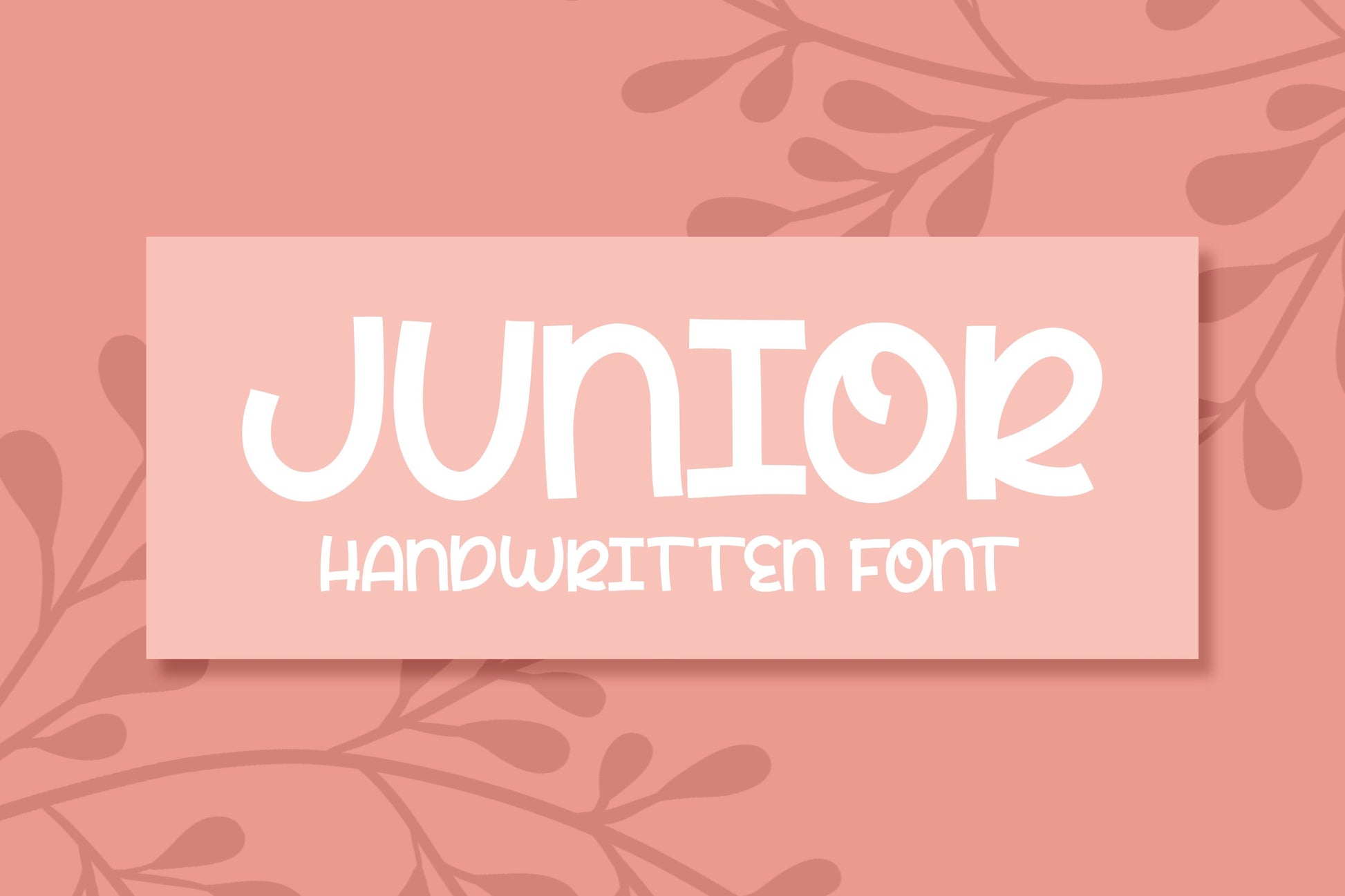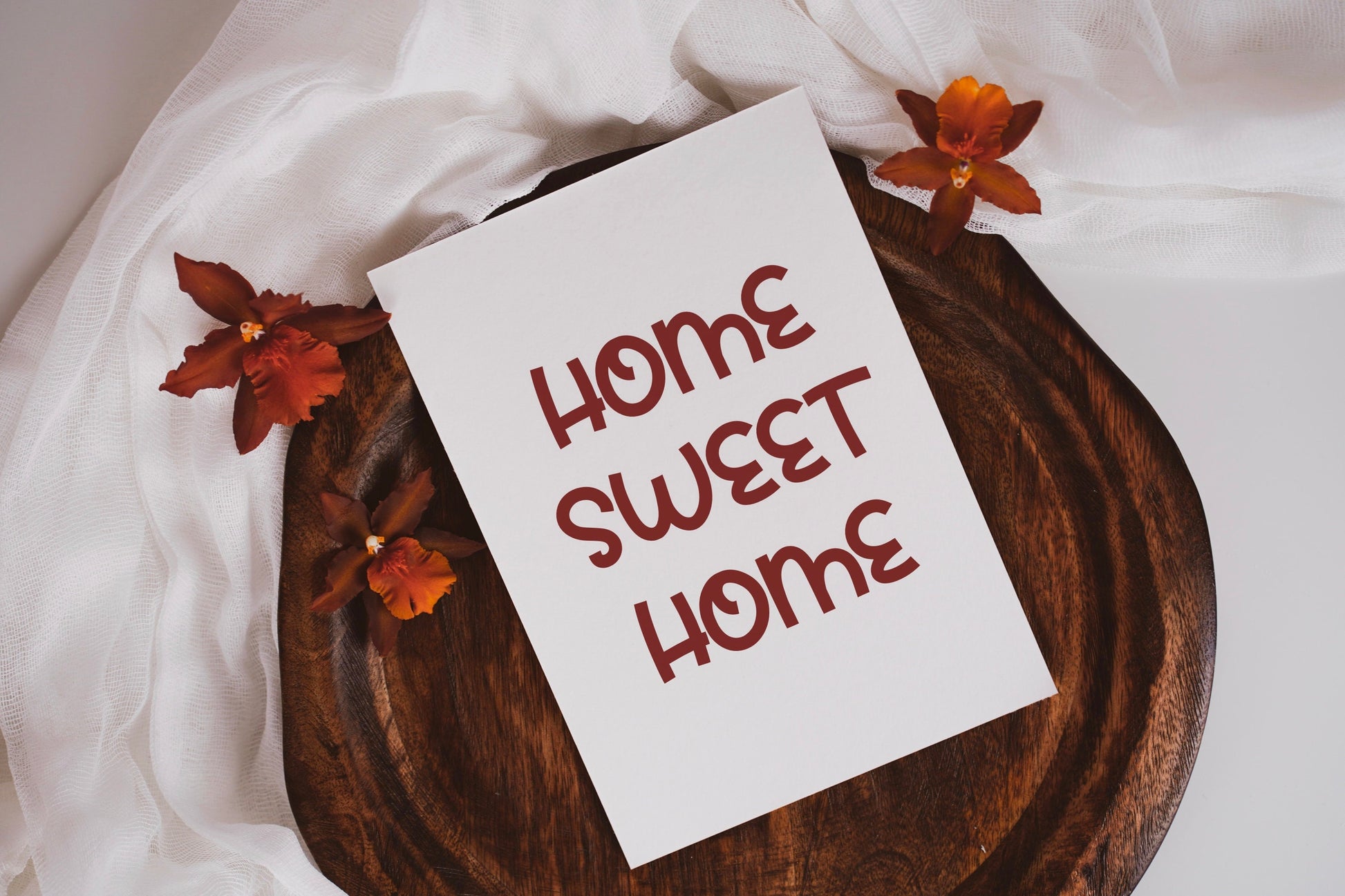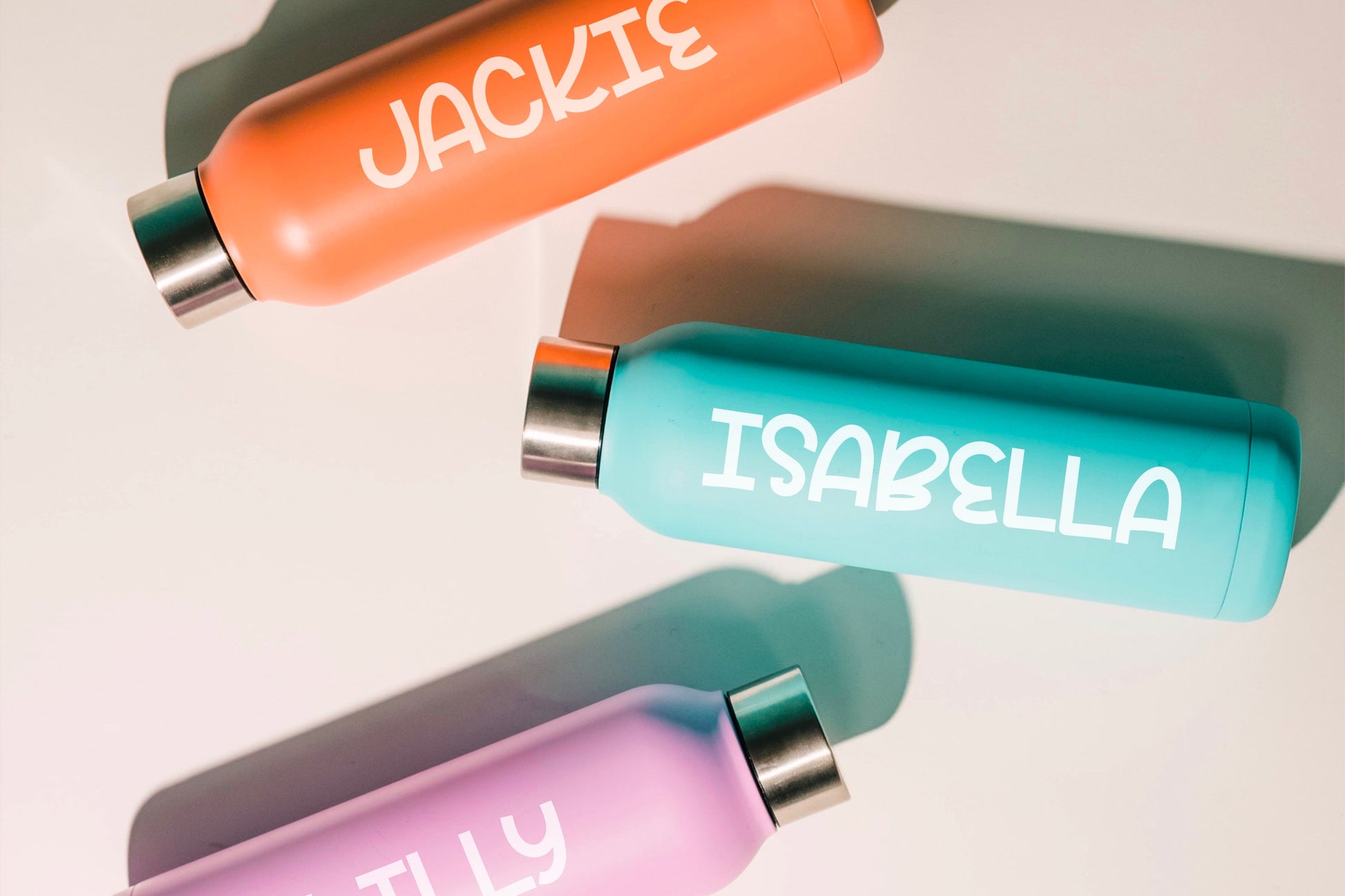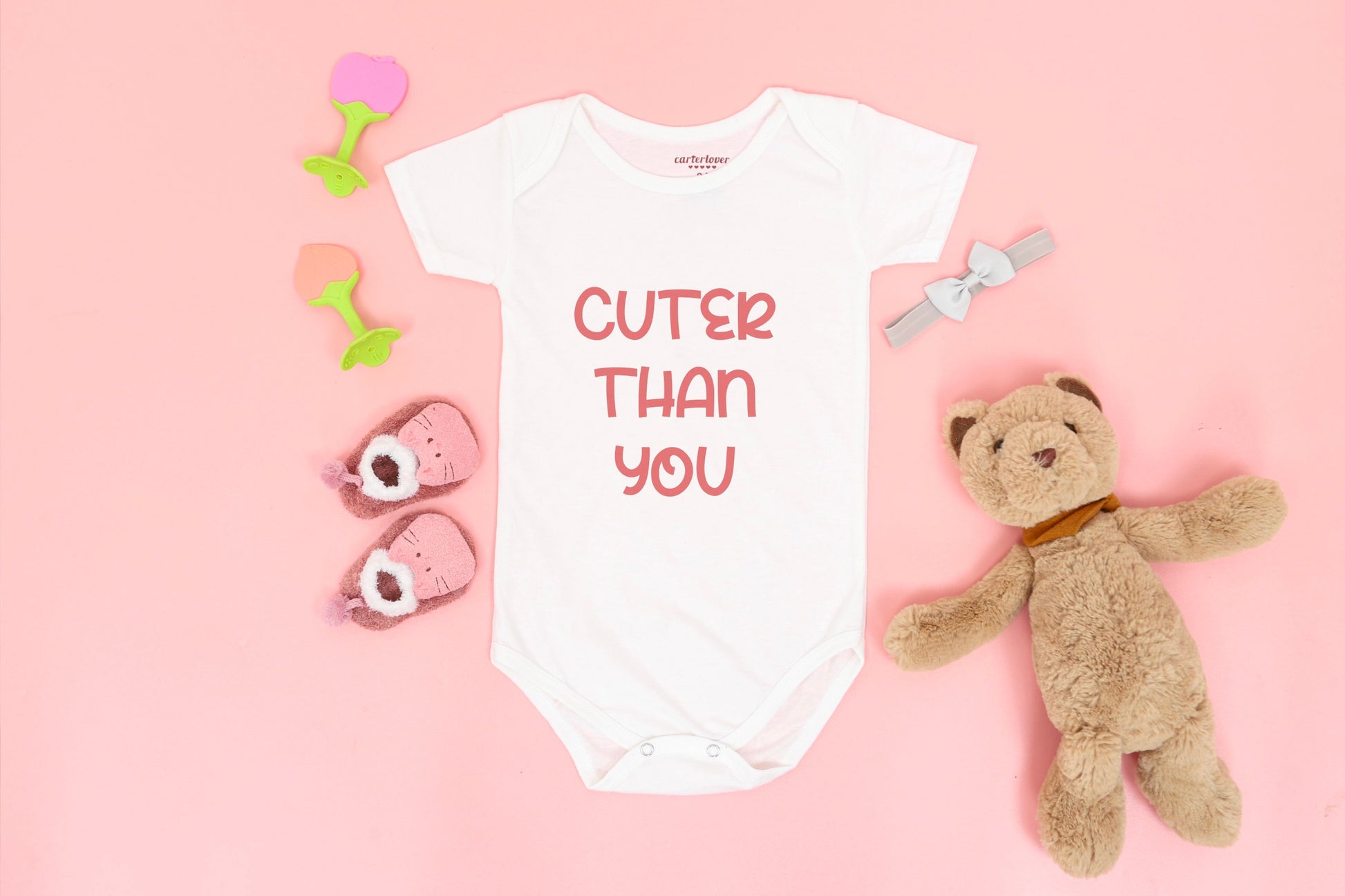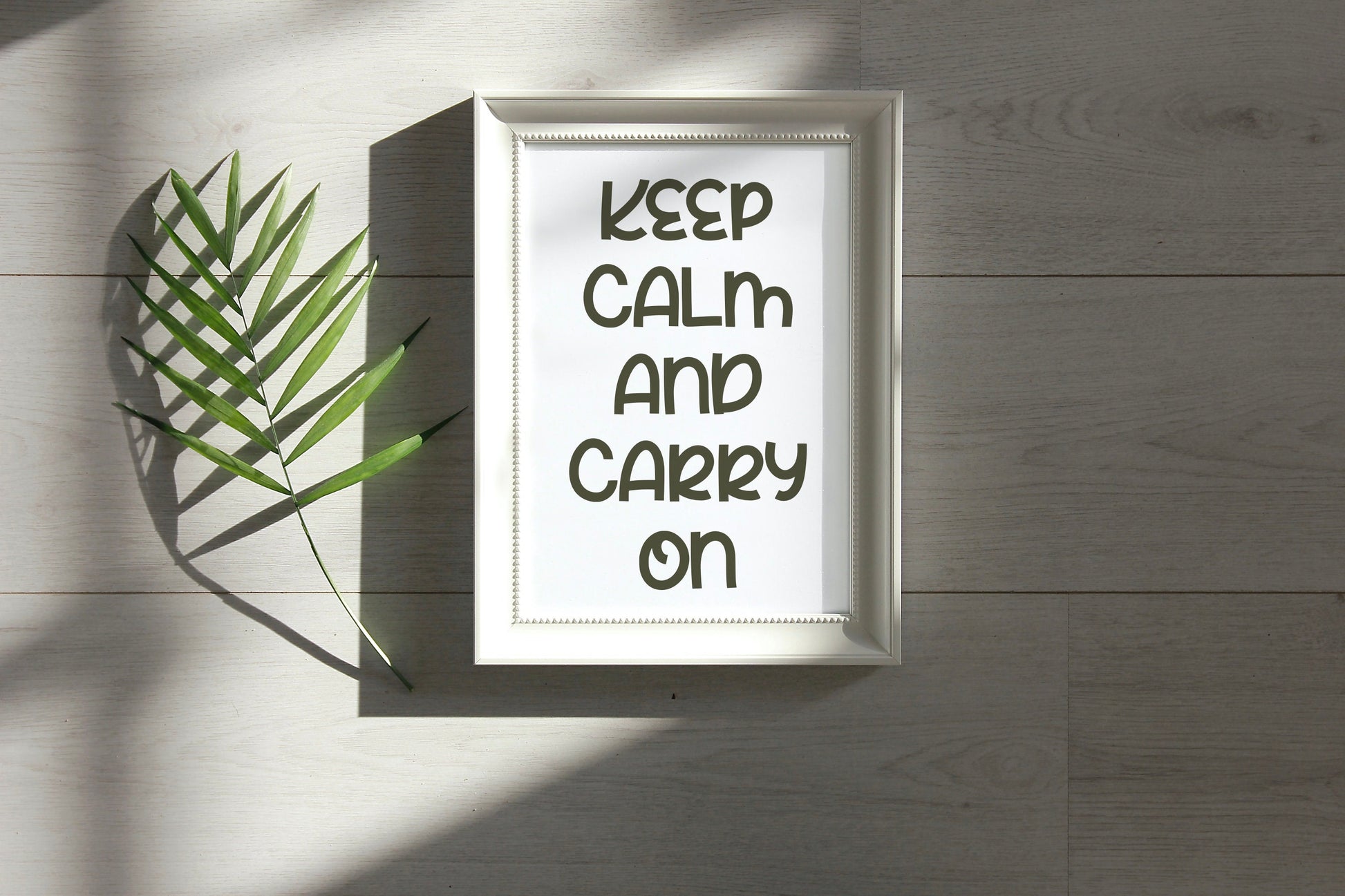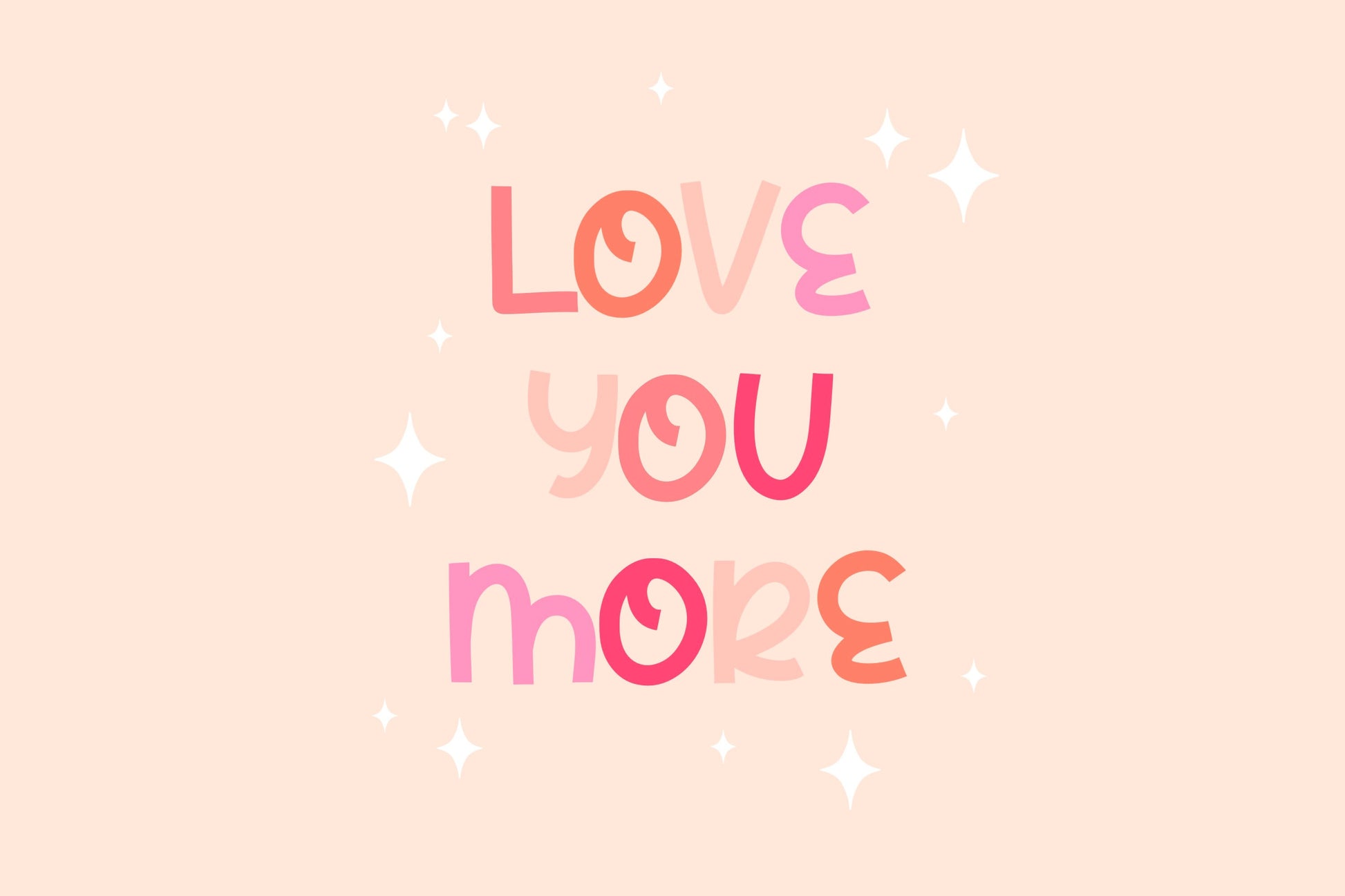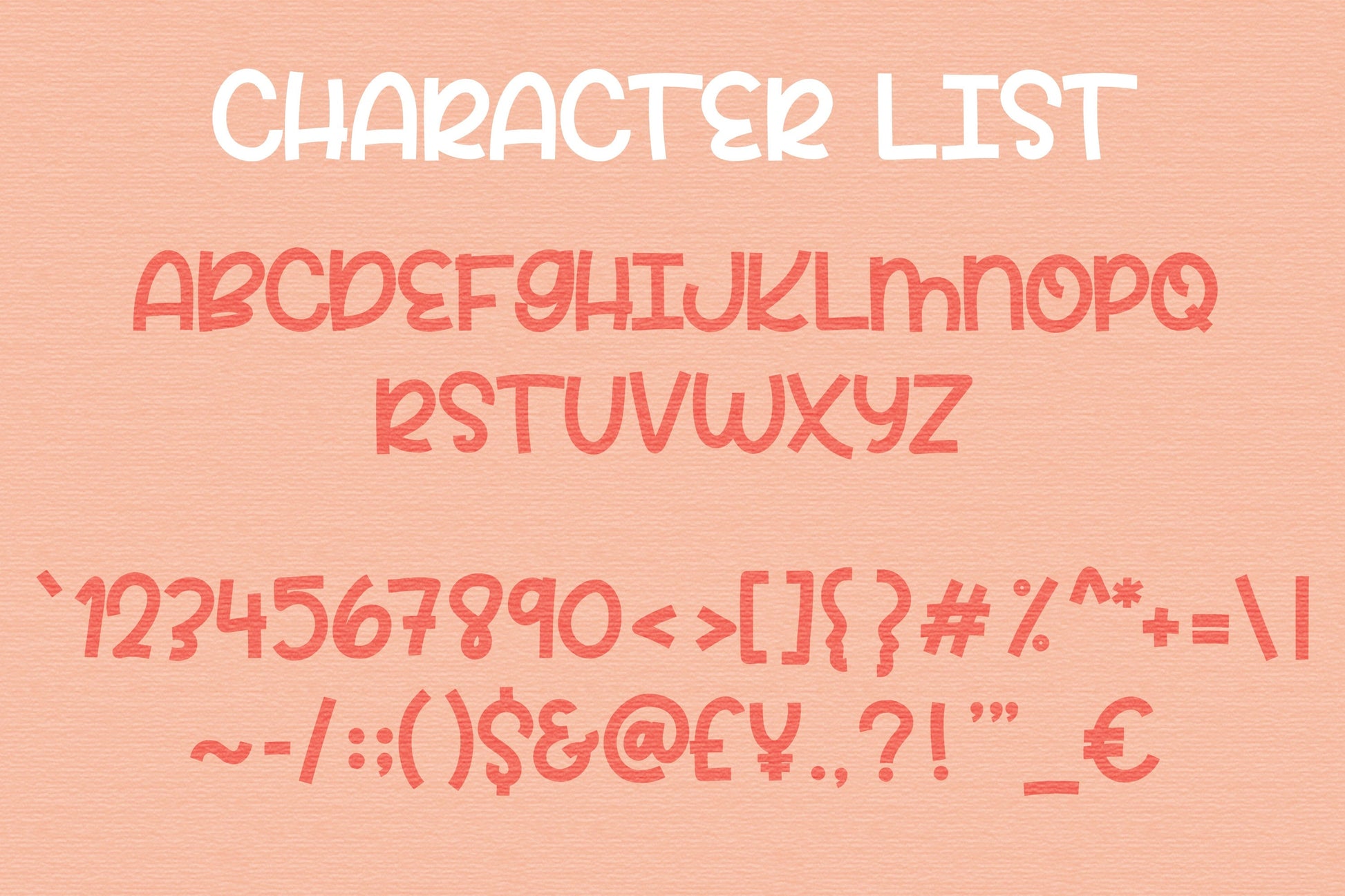
Junior Handwritten Font
This is my Junior handwritten/hand drawn font. This unique, squared monoline font will add a fun, playful, handmade flare to your design!